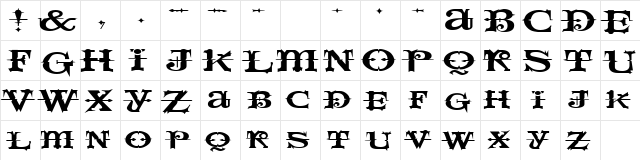
SpaceIveyExtended Regular
Design Context for SpaceIveyExtended
SpaceIveyExtended is a composed and adaptable typeface that performs quietly and consistently across a wide range of design contexts.
Pro Tip: Use SpaceIveyExtended in both headline and body roles to test its range before committing to a single application.